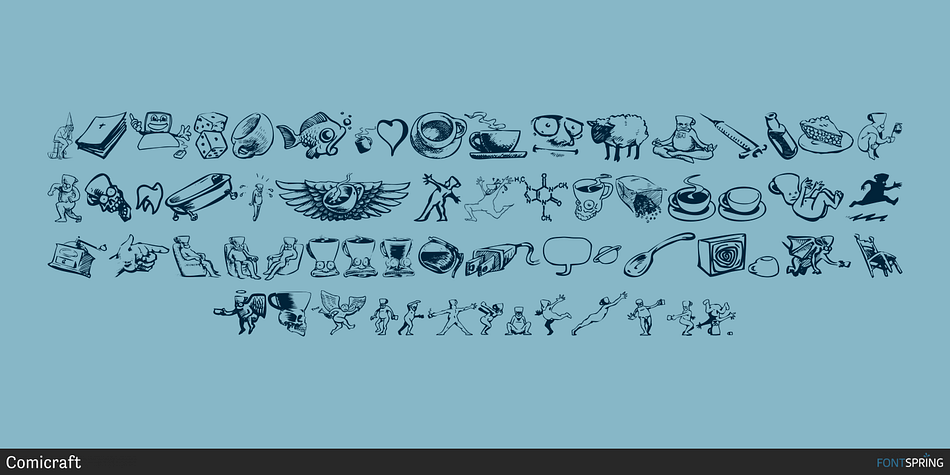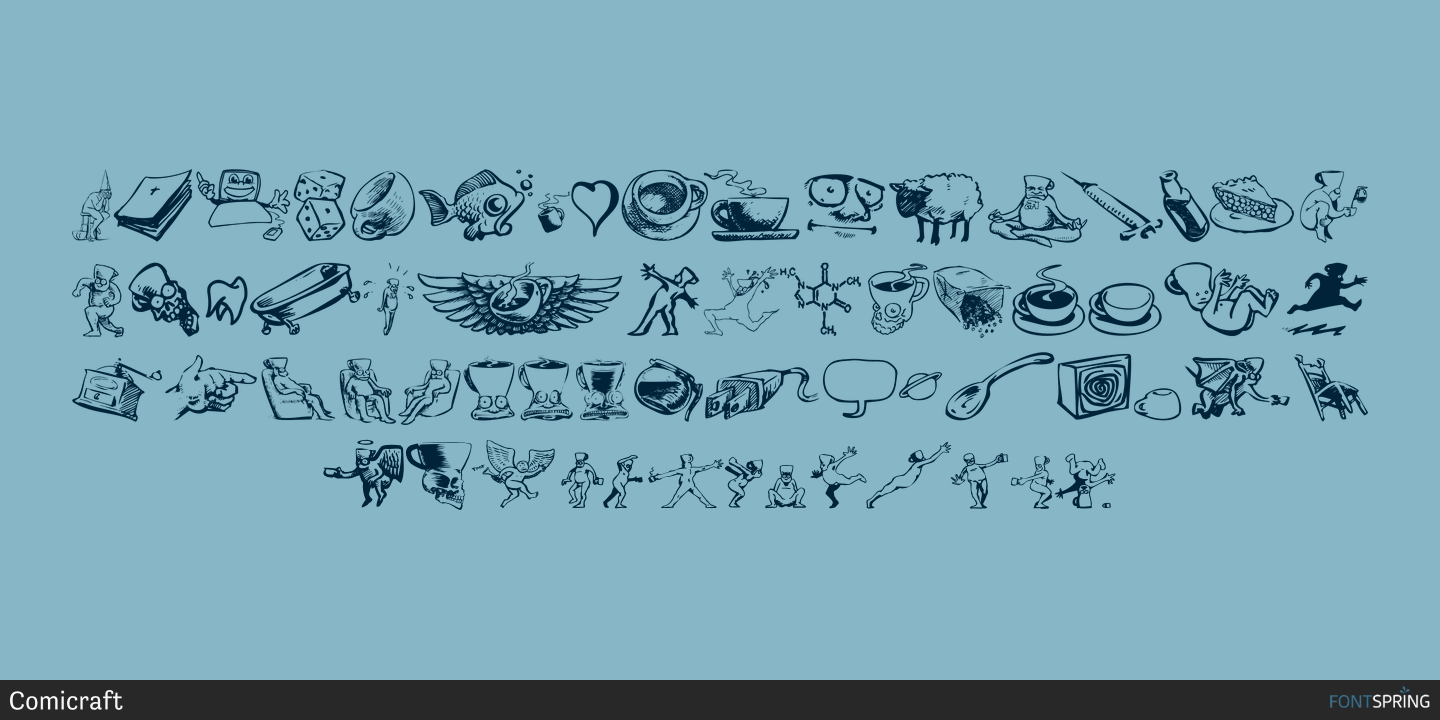
Designed by John Roshell, Too Much Coffee & Donuts is a dingbat font published by Comicraft.
If you’ve had too much coffee but not enough of Too Much Coffee Man you can now indulge in an excess of characters created by the hand of Too Much Coffee Man’s creator, Mister Shannon Wheeler. Don’t worry, in our efforts to ensure clean and confident lettering samples, we kept Shannon on decaf until he was done. Dip this font in your system folder and your hard drive will get a caffeine and sugar rush guaranteed to increase its memory partition and bring the images on your monitor into sharper focus.